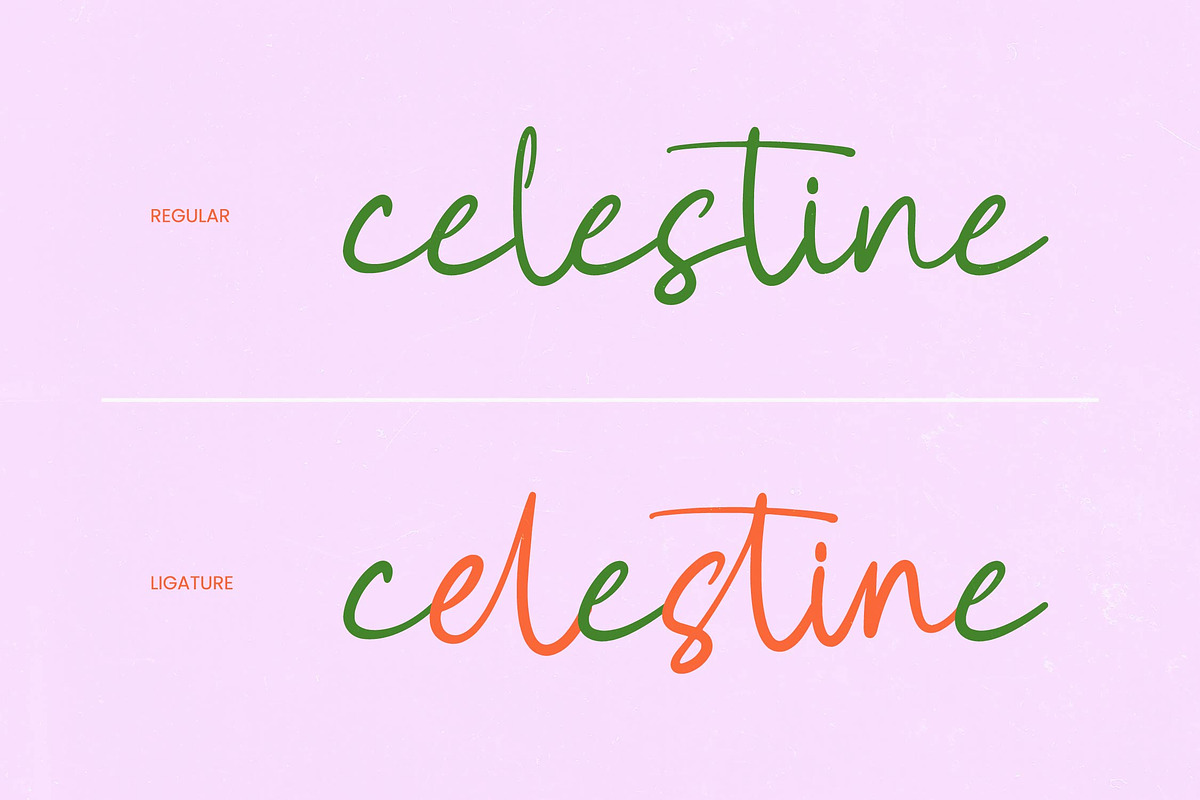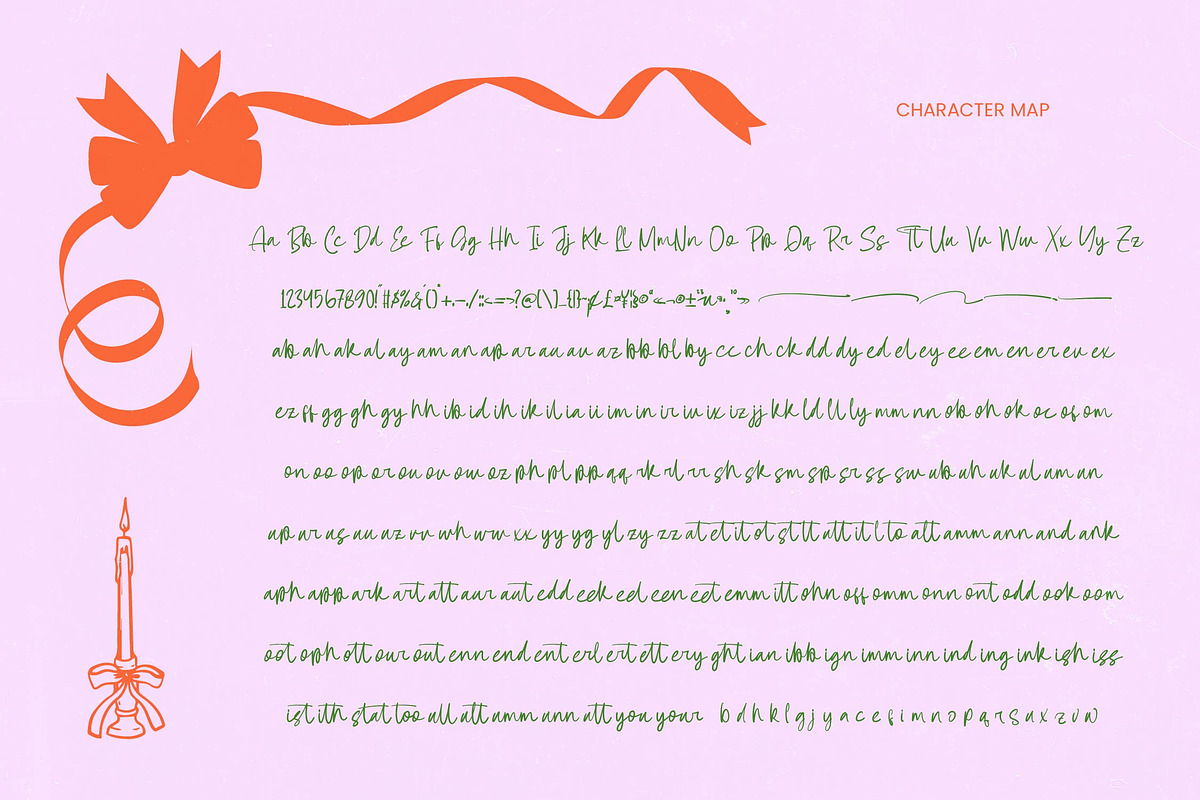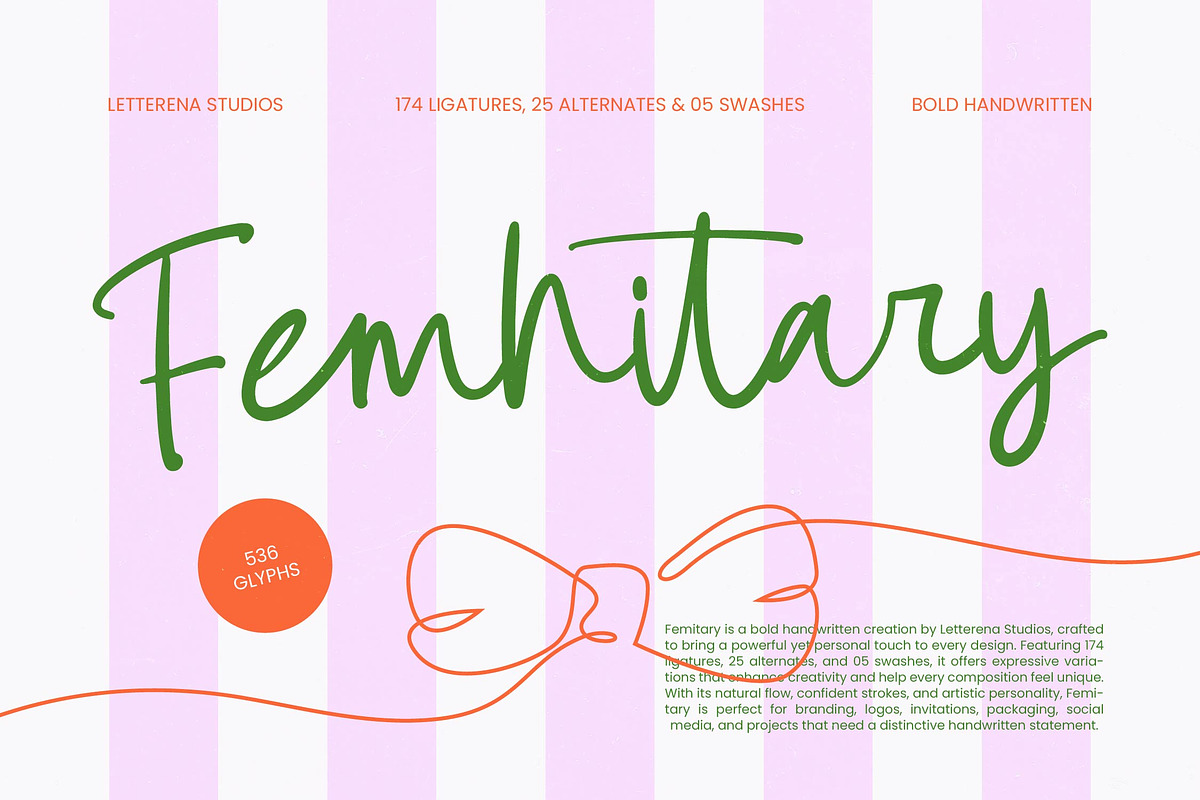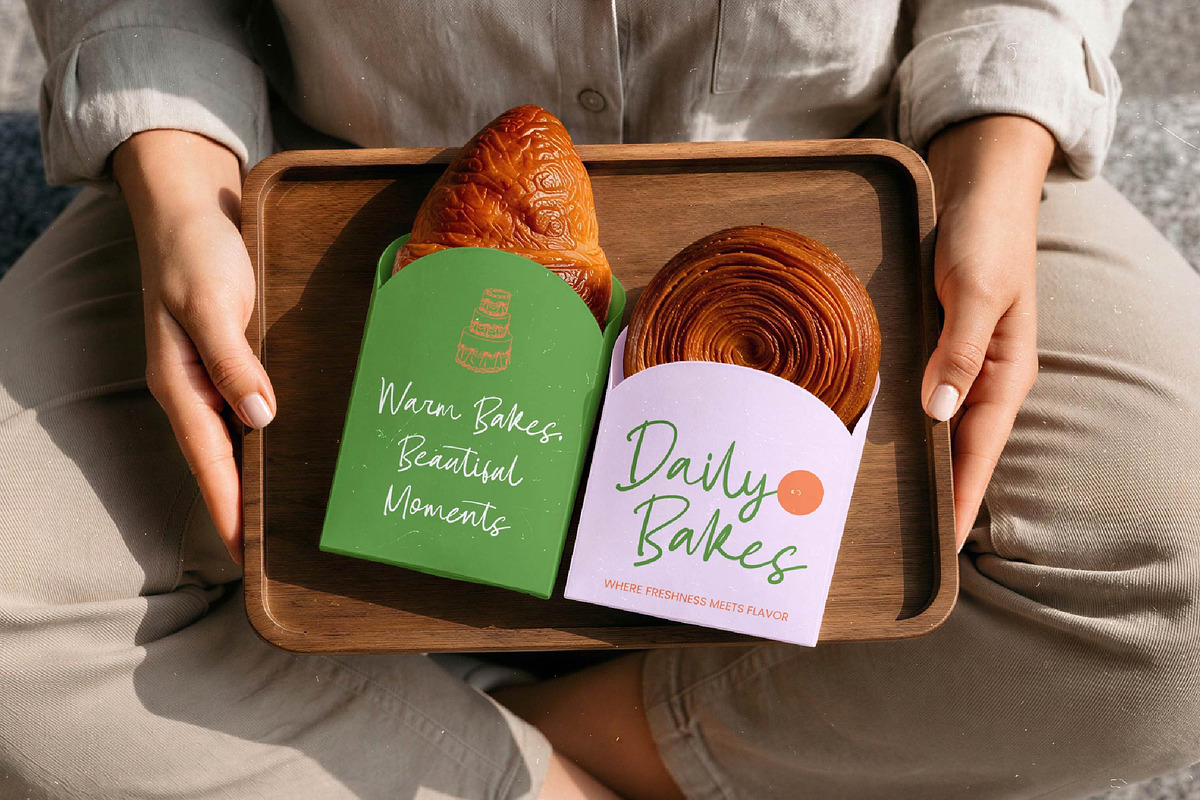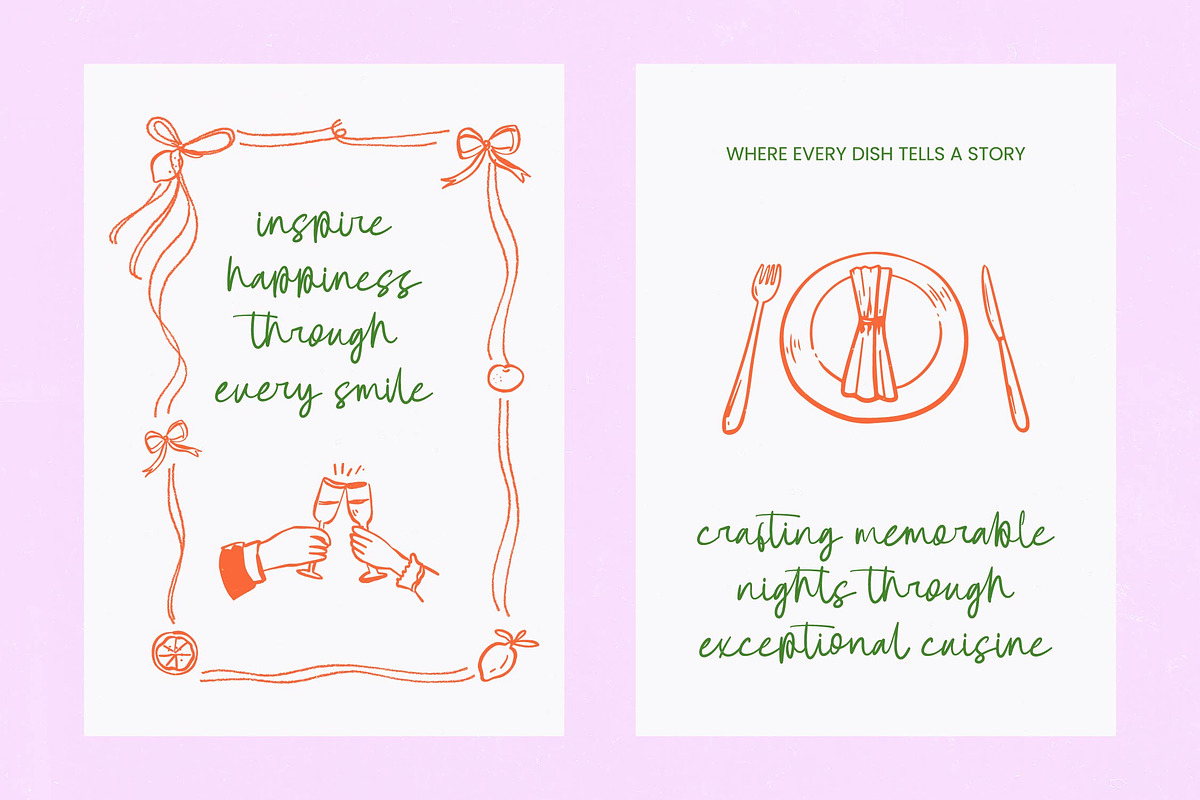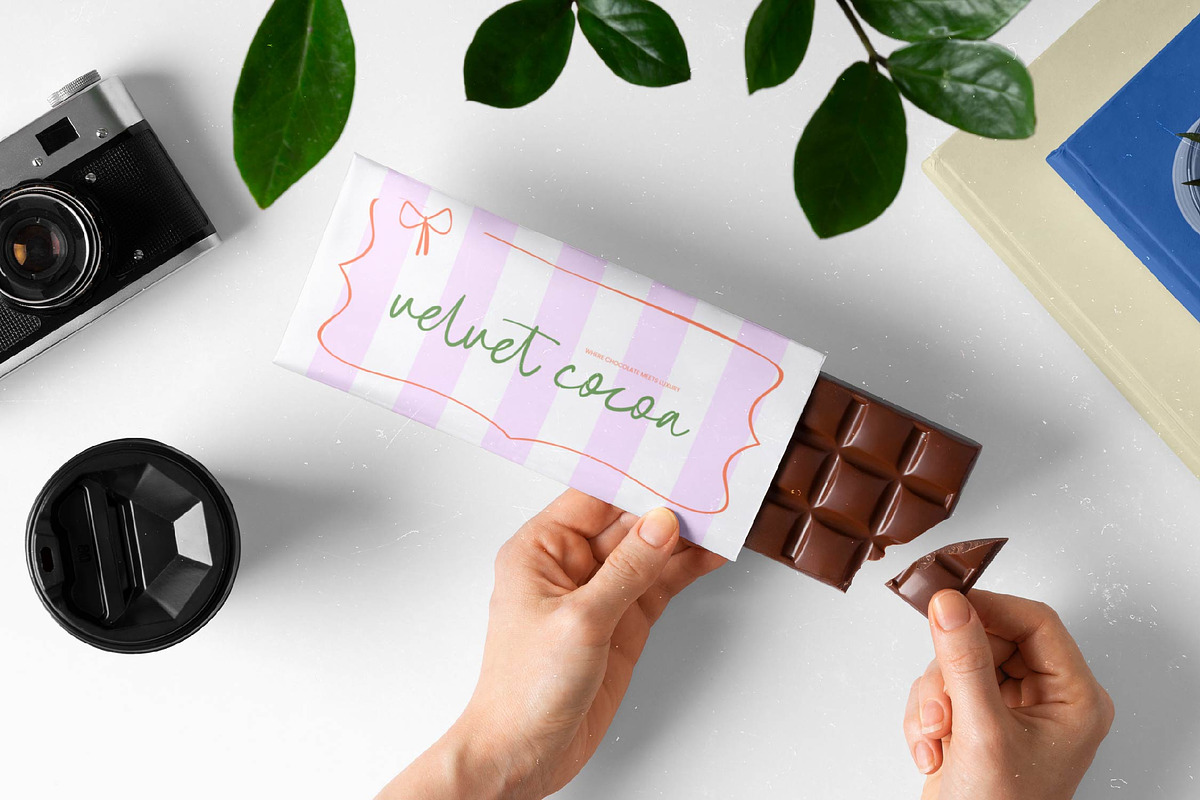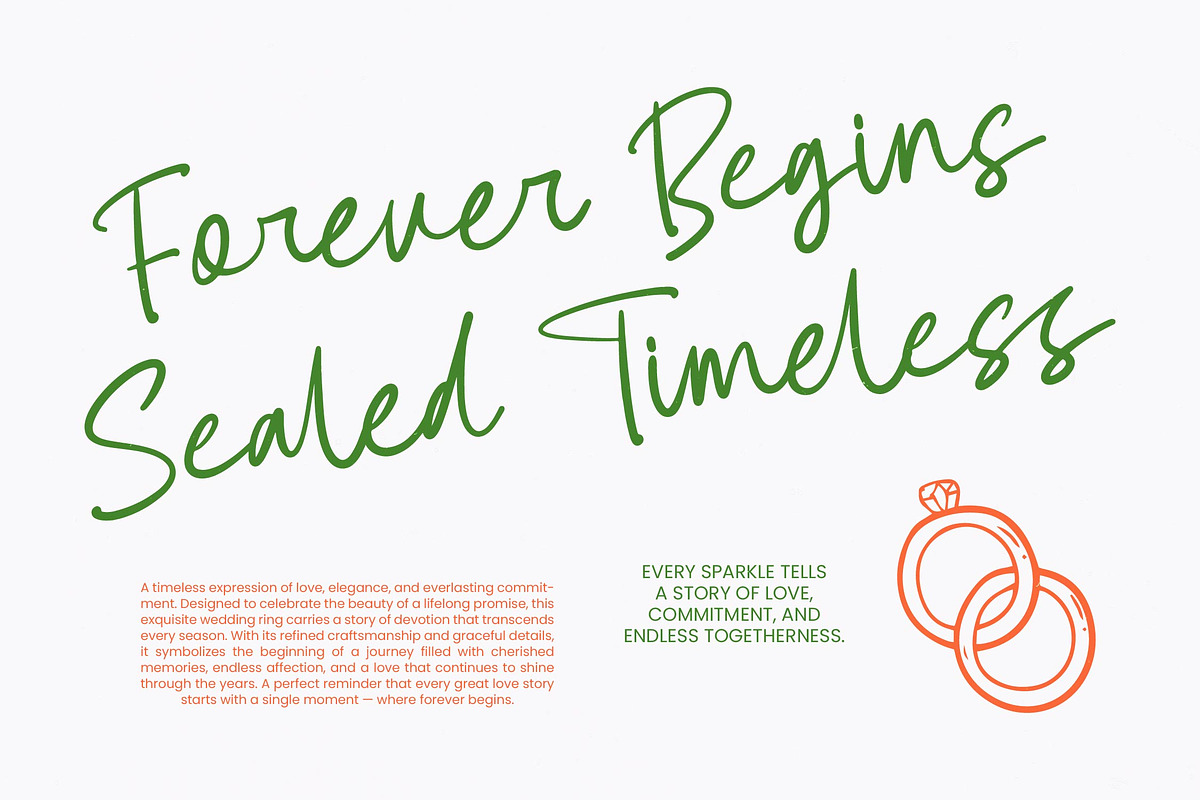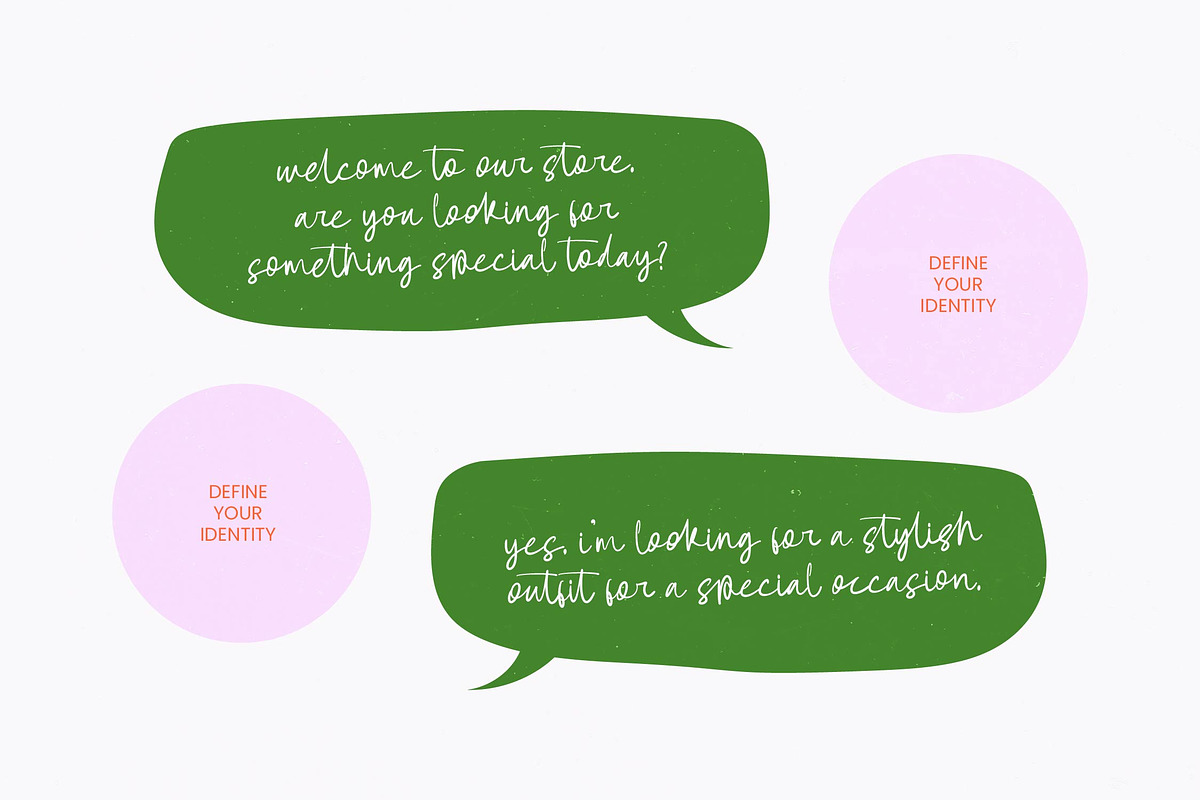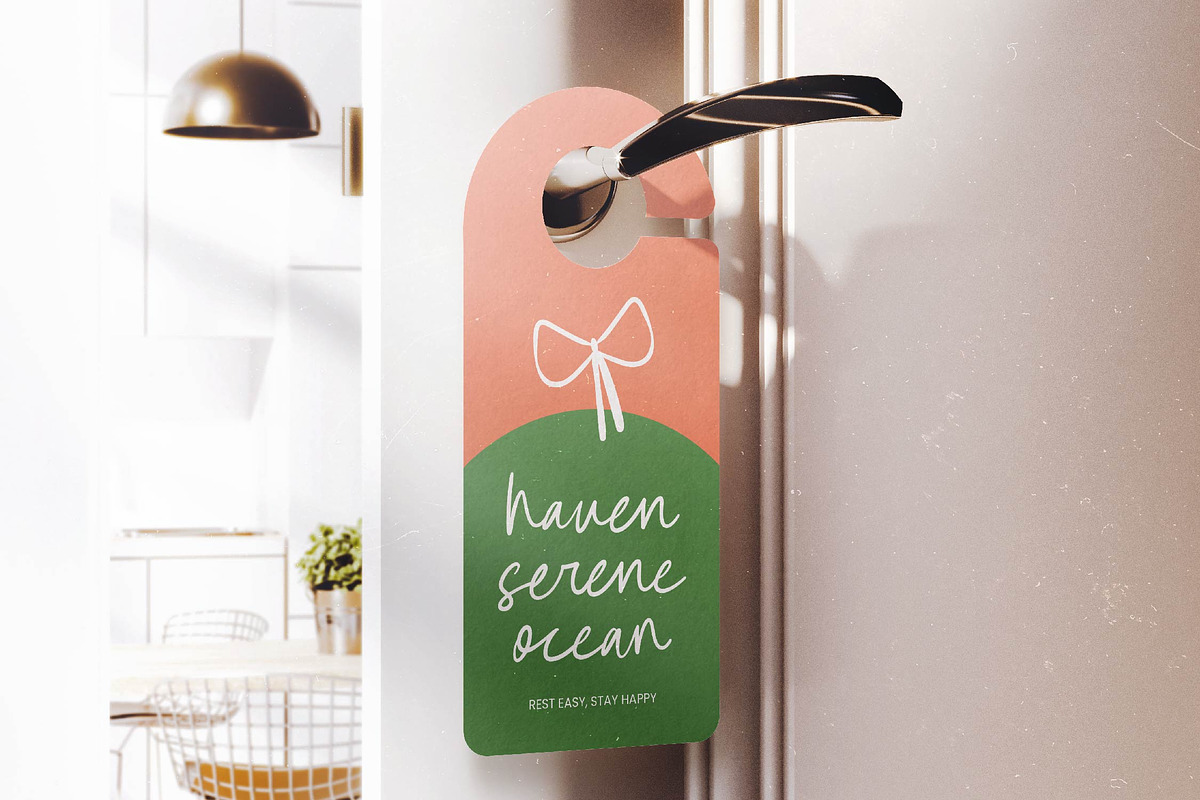
Femhitary Bold Handwritten Font
Femhitary - Bold Handwritten Font
Elevate your creative vision with a typeface that embodies raw artistic energy and sophisticated craftsmanship. Femhitary - Bold Handwritten Font, designed by Letterena Studios, provides a powerful yet personal touch to every design project. Its confident strokes and natural flow ensure your message is delivered with a distinctive personality that captures attention instantly in a crowded marketplace, making it an essential asset for modern designers.
Precision meets playfulness in this feature-rich typographic toolkit designed for maximum creative flexibility. Boasting an impressive 536 glyphs, including 174 ligatures and 25 alternates, Femhitary - Bold Handwritten Font offers endless expressive variations. These artistic swashes and alternates allow for customized compositions, ensuring that no two designs ever look the same while maintaining a cohesive, high-impact aesthetic that resonates with viewers.
Reach a worldwide audience without compromising on style or substance through comprehensive language integration. With its extensive multilingual support, Femhitary - Bold Handwritten Font adapts seamlessly across global markets, making it incredibly versatile for international projects. This unmatched versatility ensures your brand maintains its visual integrity across different regions, providing a consistent brand voice that remains professional and accessible on a global scale.
Transform ordinary concepts into extraordinary brands with a visual anchor tailored for high-end results. This typeface is perfect for luxury branding, bespoke packaging, editorial design, and elegant invitations. Whether you are crafting compelling social media graphics or iconic logos, Femhitary - Bold Handwritten Font serves as the ultimate choice for those seeking a bold handwritten statement that exudes professional excellence and commercial appeal.